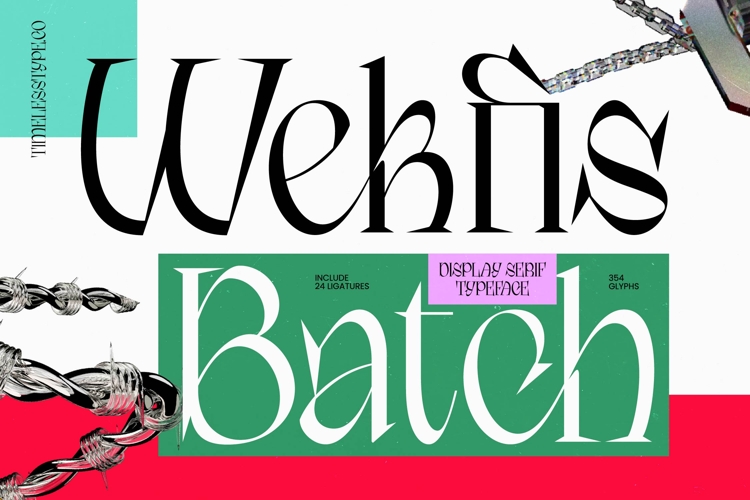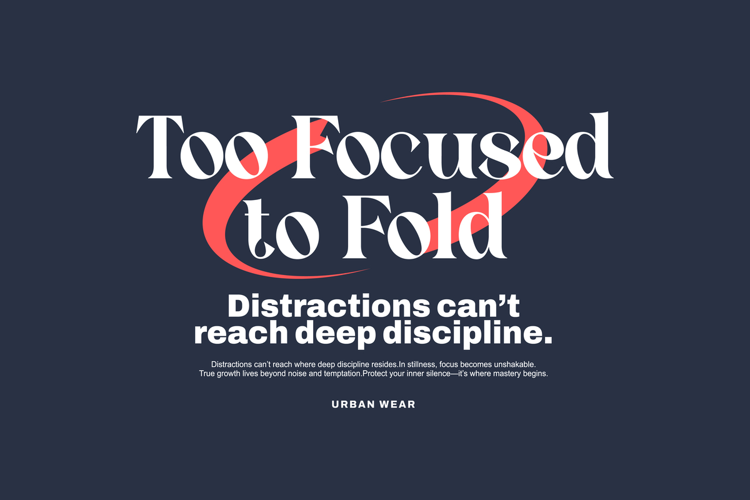
Wekfis Batch - Display Serif Typeface
Redefine modern elegance with a typeface that bridges the gap between classic refinement and contemporary edge. Wekfis Batch - Display Serif Typeface is a masterclass in high-contrast design, offering sharp, sophisticated serifs that command immediate attention on any canvas. Its visual impact is striking, making it an essential tool for designers seeking to infuse their work with a sense of contemporary luxury and unmatched poise through a unique 354 glyph character set.
Elevate your brand identity to new heights of sophistication with a tool built for premium aesthetics. Wekfis Batch - Display Serif Typeface is the perfect choice for luxury branding, high-end fashion magazines, and editorial design where style is paramount. Furthermore, it is perfect for creating stunning premium packaging and visual identities that require a bold yet graceful presence to stand out in a competitive global marketplace.